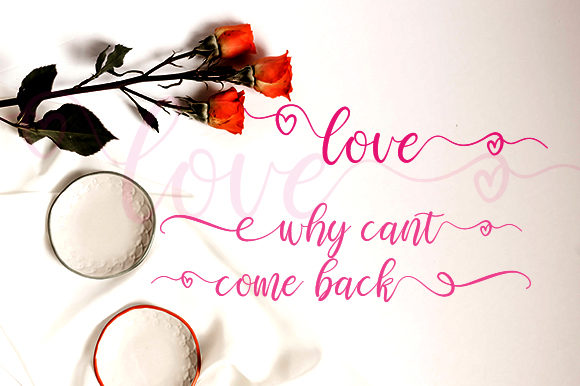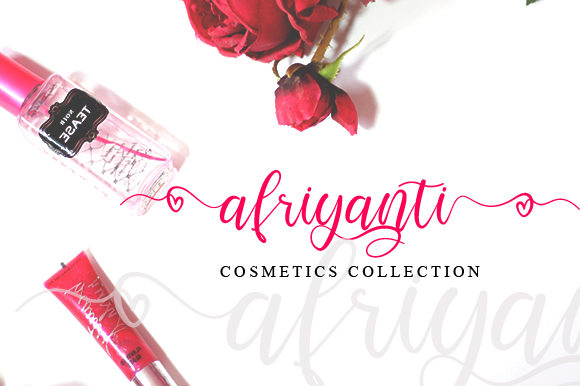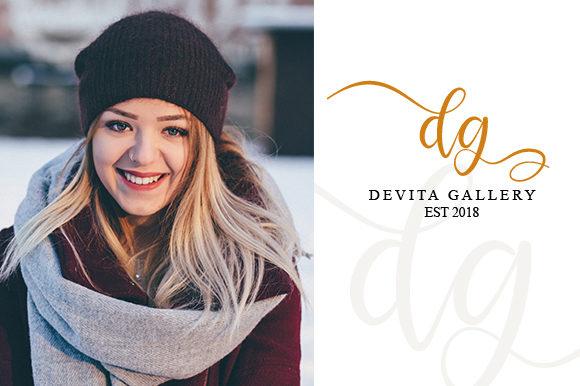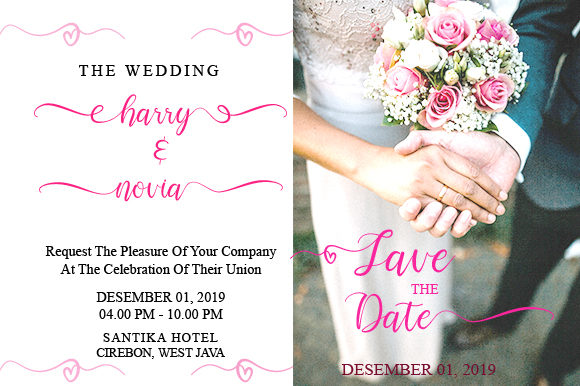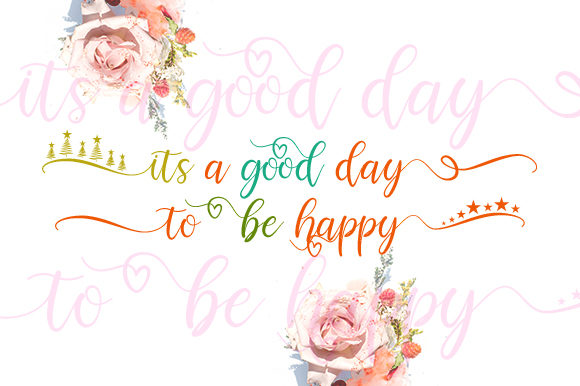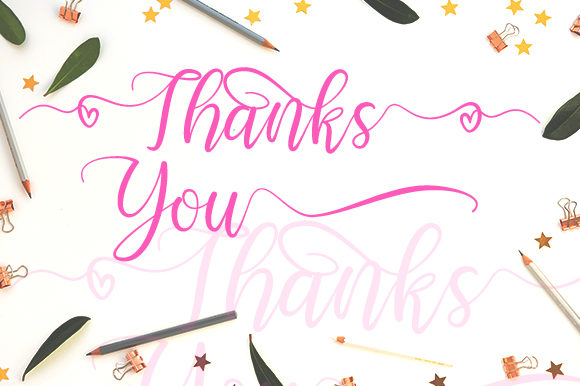
About Selamyts Font
Selamyts is inspired by classic typography and brings its own unique style to any design project. This fantastic handwritten font is best suited for headlines of all sizes, as well as for blocks of text that have both maximum and minimum variations. Whether it’s for web, print, moving images or anything else – Selamyts will look spectacular.